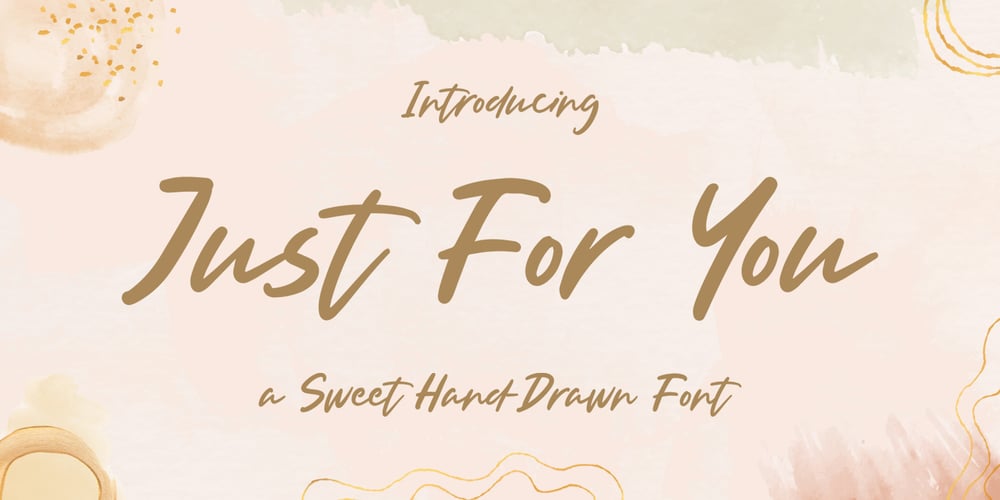
Just For You
Just For You Font Family was designed by Hilmius Akbar and published by Typefactory. Just For You contains 1 styles and family package options. Just For You is a sweet and dreamy handwritten font. Flowing easily and with a sweet and elegant touch, this font is ideal for each of your personal, bakery, apparel, romantic designs or ideas.